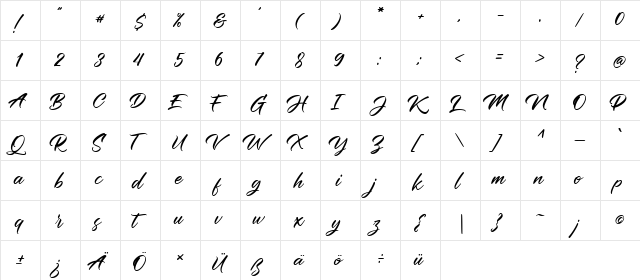
BlackHouse Script Regular Font Preview
BlackHouse Script Regular
BlackHouse Script Regular Font Details
Design Context for BlackHouse Script Typeface
BlackHouse Script flows with the natural rhythm of handwritten lettering, making it ideal for designs that call for warmth and personal expression.
Font Pairing: Combine BlackHouse Script with a simple geometric sans for maximum contrast — the tension between flowing curves and clean structure is a classic typographic pairing.
Pro Tip: Use BlackHouse Script for short runs of text — names, titles, or taglines. Extended body copy in script faces tires the eye quickly.